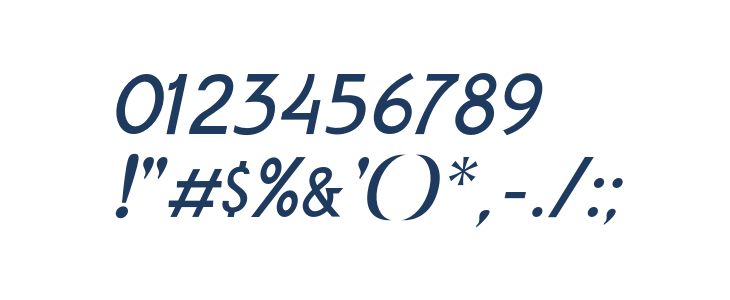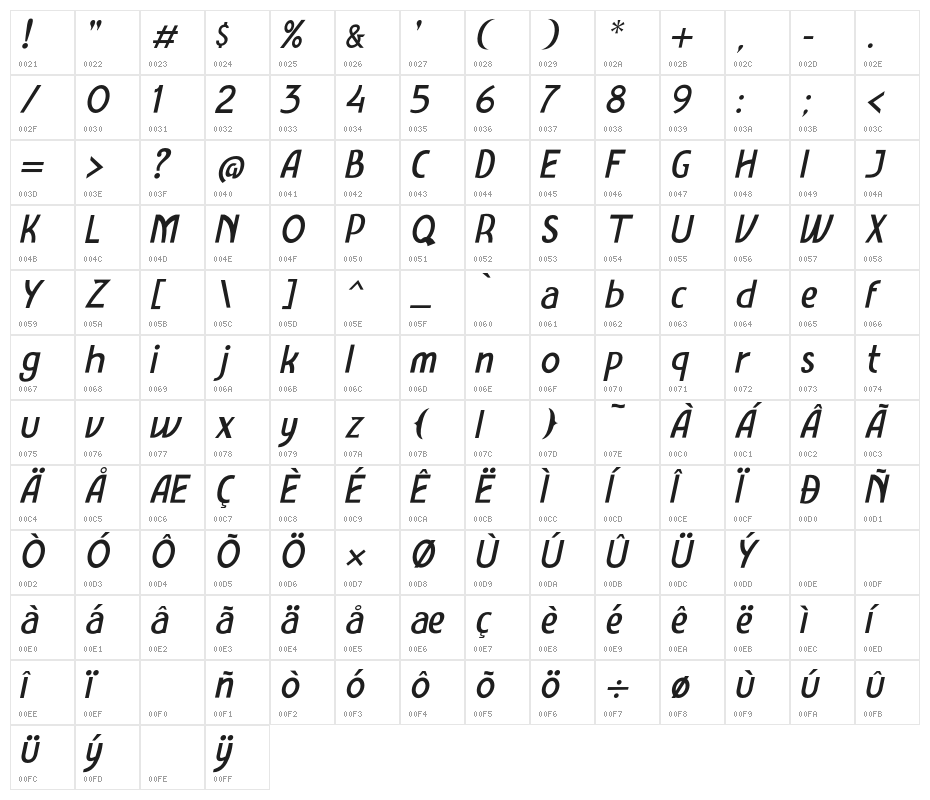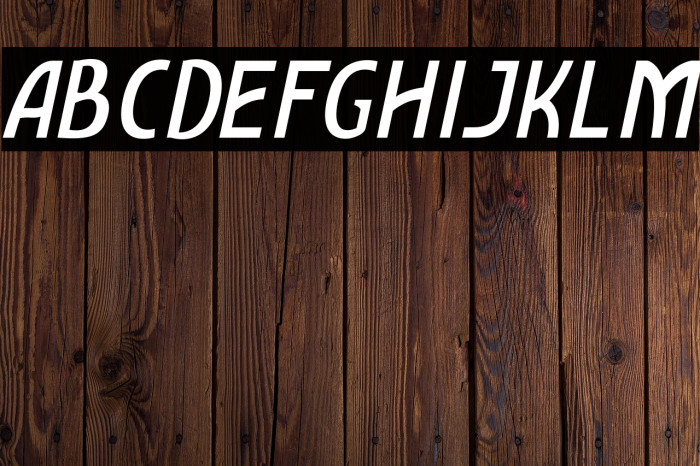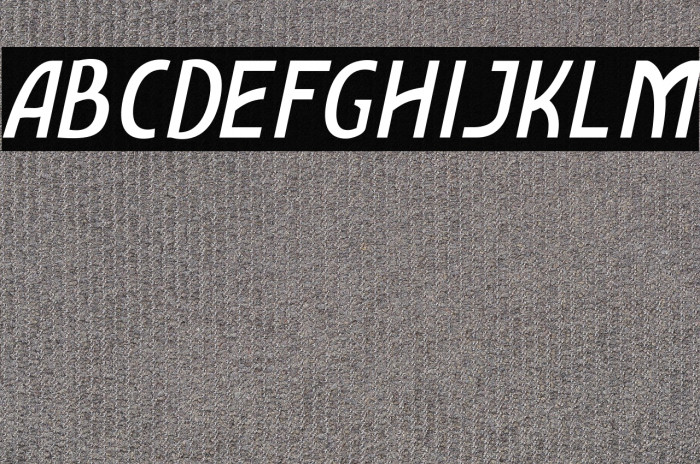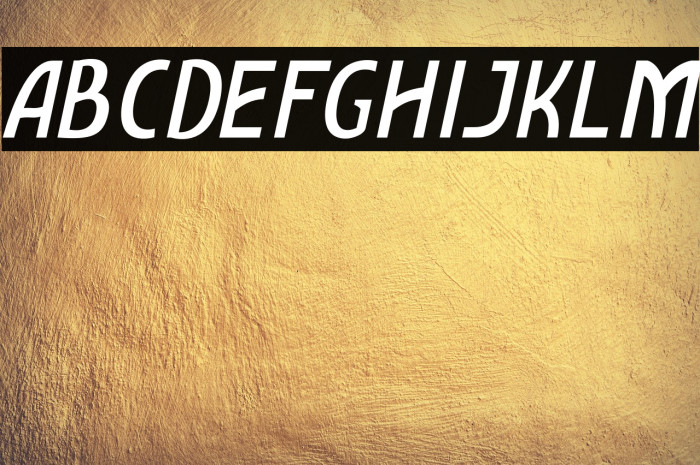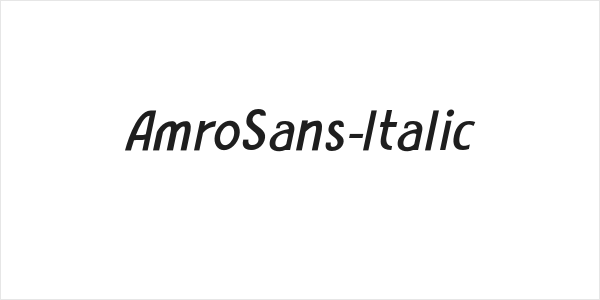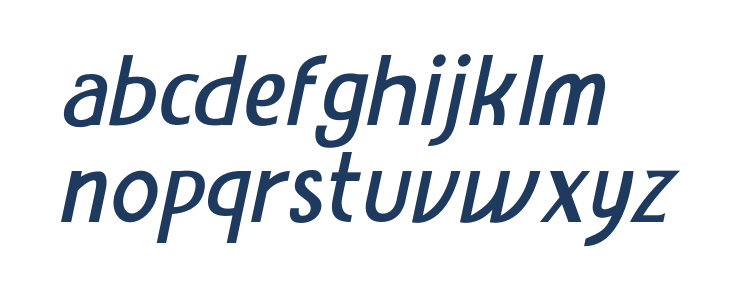
AmroSans-Italic Font
AmroSans-Italic Description
This font features a sleek and modern design with a slight italic slant, giving it a dynamic and forward-moving appearance. The characters are clean and streamlined, with a consistent stroke width that maintains readability while adding a touch of elegance. The uppercase letters are bold and assertive, while the lowercase letters are more rounded and approachable. The numerals are clear and distinct, making them suitable for both display and text purposes. Special characters are well-integrated, maintaining the overall aesthetic of the font. This typeface is versatile, suitable for a variety of design applications.
| Proposed Projects | Ideal for branding, advertising, and editorial design projects where a modern and dynamic look is desired. |